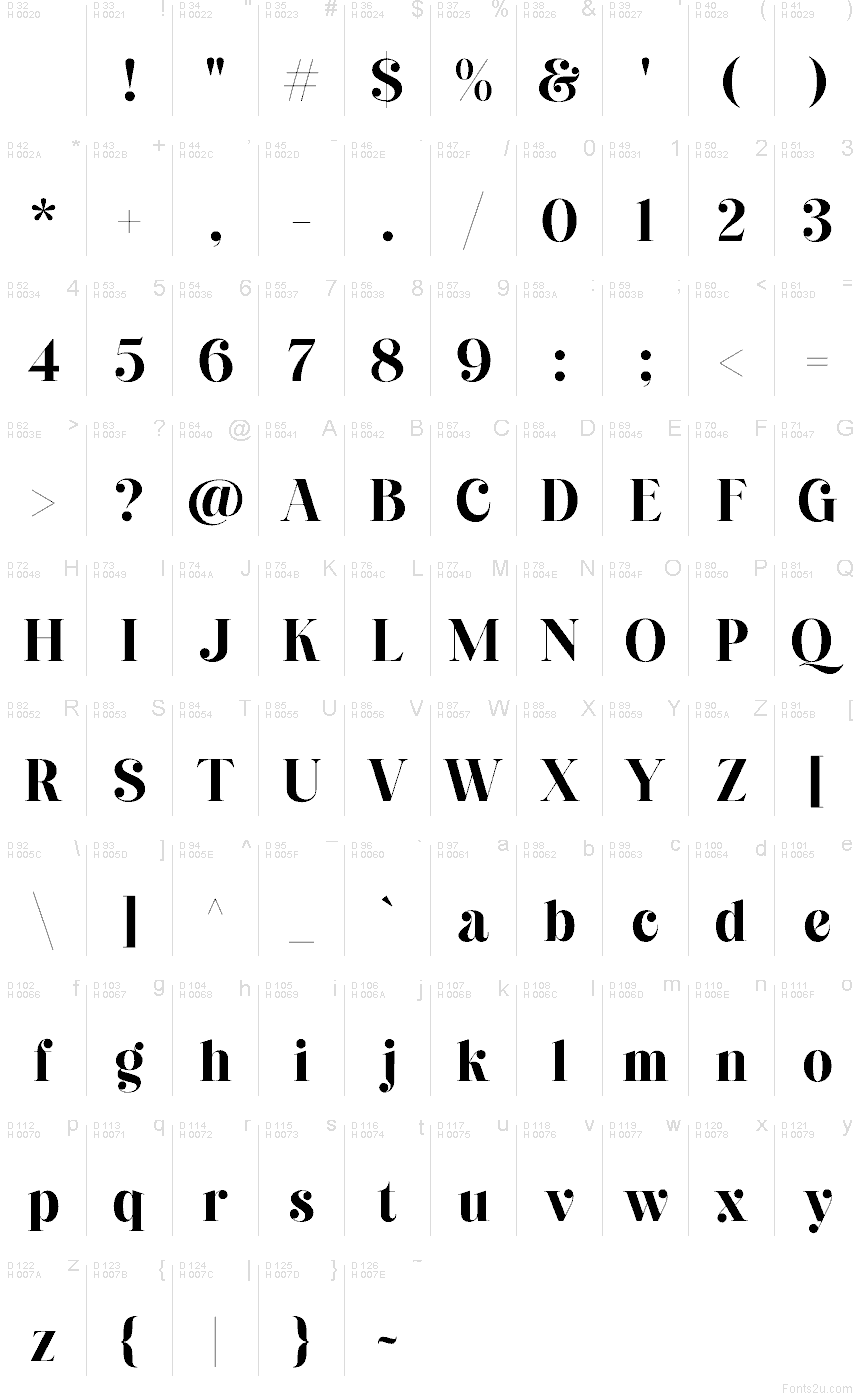
Cheva Display font by Letteralle Studios is a free retro serif typeface that feels like it was pulled from the signboard of an old theater and polished for modern screens. Heavy, inky strokes meet soft, rounded ball endings, giving each letter a dramatic yet playful flourish. The rhythm is bold and upright, so even with all its curves and ornament, the text still reads cleanly and commands attention in a single glance.
Using Cheva Display in your work brings a lush, vintage drama to branding, posters, book covers, packaging, album art, and editorial headlines. This free font thrives at large sizes where its sculpted forms and chunky silhouettes can really breathe, while short phrases or names gain a cinematic presence. Try pairing it with a simple geometric sans for body text to let Cheva Display handle the spotlight and keep the rest of the layout crisp and grounded.